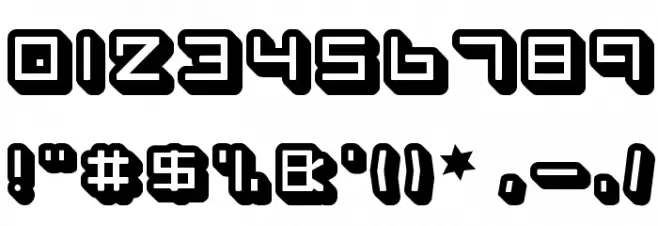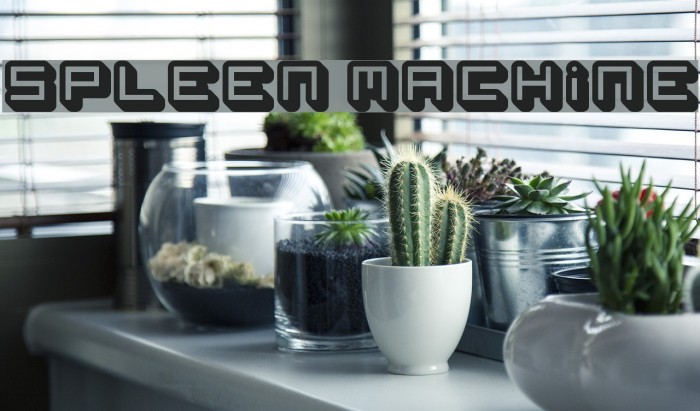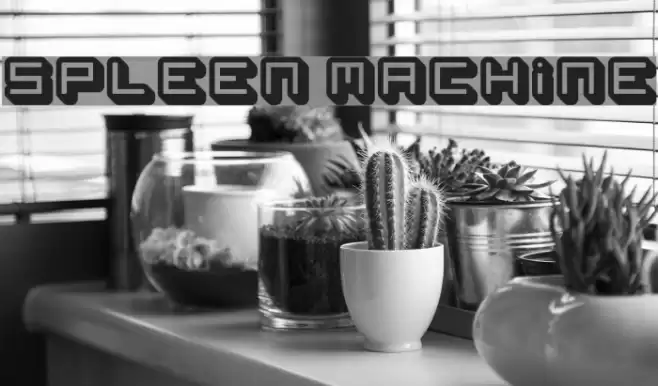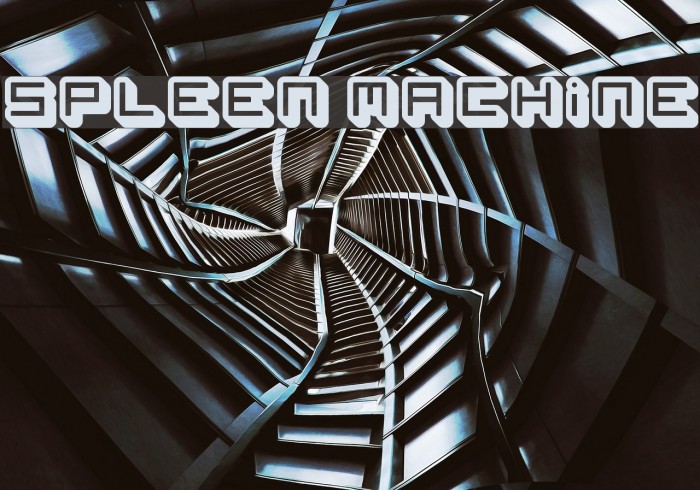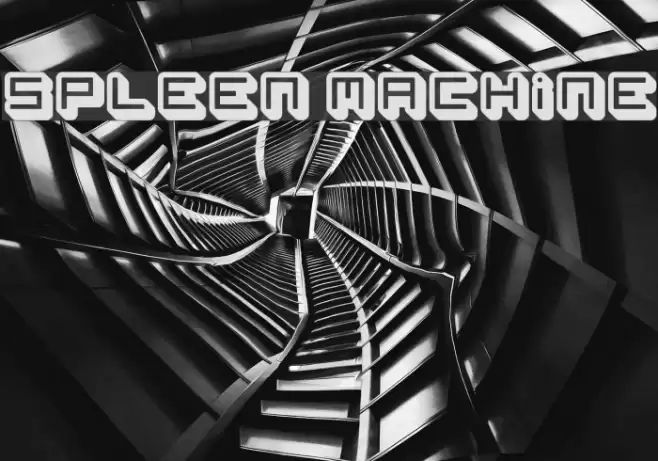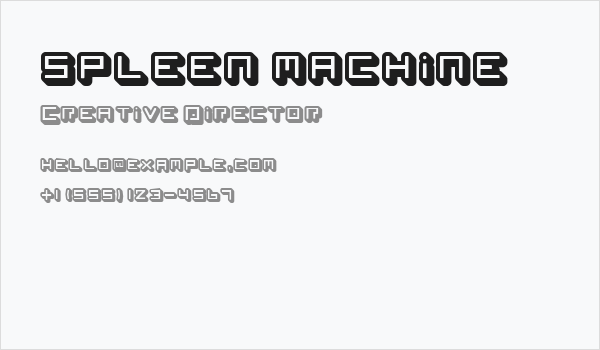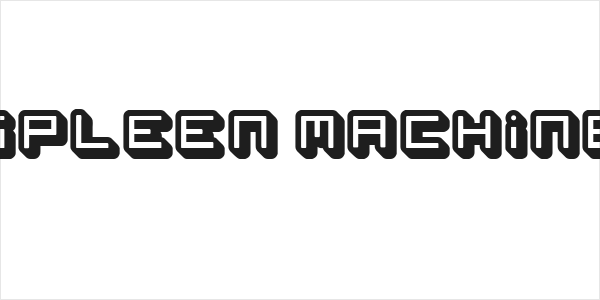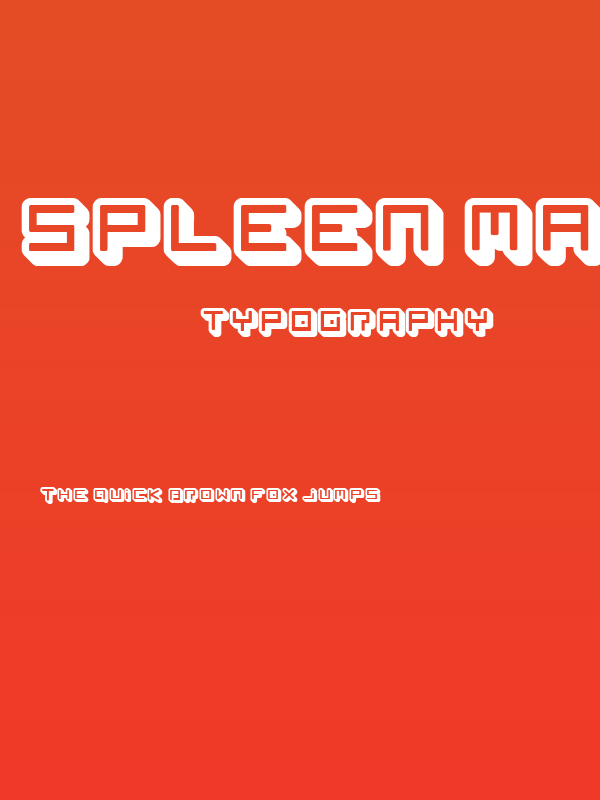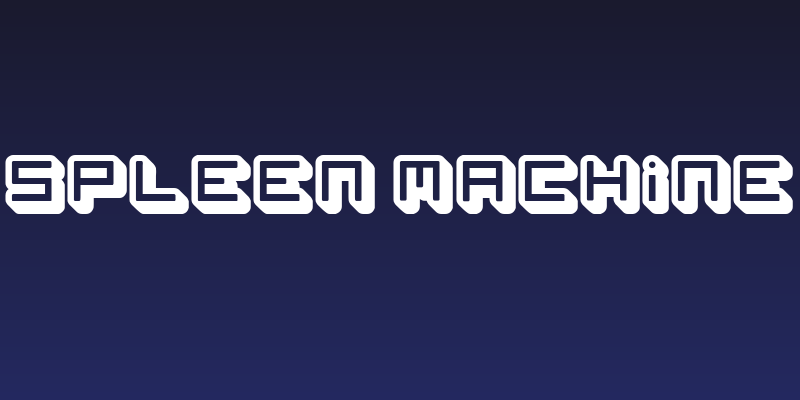
spleen machine Font
spleen machine Description
This font features a bold, geometric design with a distinct three-dimensional effect. The characters are outlined with a thick border, giving them a strong presence and a futuristic feel. The font is highly stylized, with angular shapes and a blocky appearance that makes it stand out. The uppercase and lowercase letters maintain a consistent style, while the numerals and special characters are designed to match the overall aesthetic. The font's unique look is suitable for projects that require a modern and eye-catching typeface.
| Overall Style | Futuristic, Modern |
| Proposed Projects | Ideal for sci-fi themed designs, video game titles, posters, and branding that requires a modern and bold typeface. |